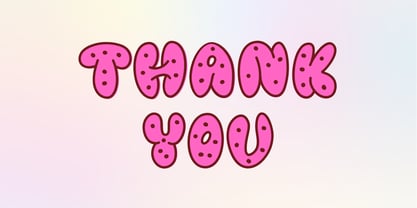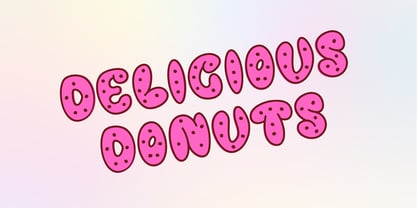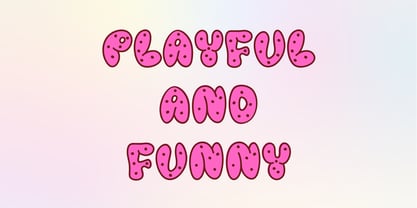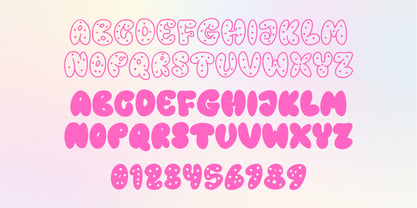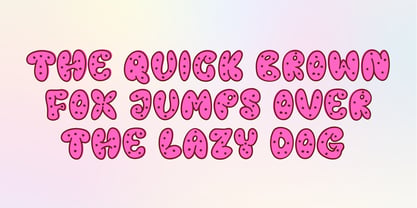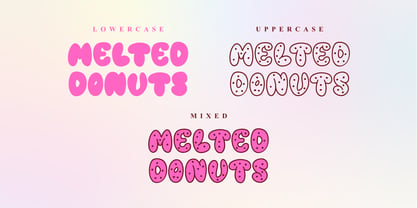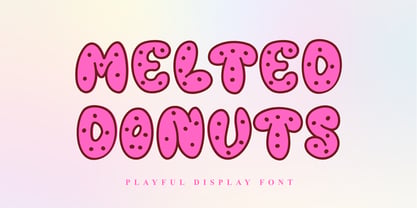
Melted Donuts
by Letterafandi Studio
The Melted Donuts Font Family was designed by Ahmad Afandi and published by Letterafandi Studio. Melted Donuts contains 2 styles and family package options. More about this family
Melted Donuts is a playful display font designed to bring a cheerful and engaging visual identity to creative projects. Featuring soft, rounded letterforms inspired by donut shapes and decorative sprinkle-like details, this typeface delivers a sense of fun, warmth, and approachability. Its bold and bubbly structure ensures excellent readability while maintaining a distinctive and memorable character. Ideal for children’s content, branding, packaging, posters, and social media graphics, Melted Donuts adds a delightful and whimsical touch to any design. Whether used for headlines or decorative typography, this font is crafted to capture attention and evoke a joyful atmosphere.
Designers: Ahmad Afandi
Foundry: Letterafandi Studio